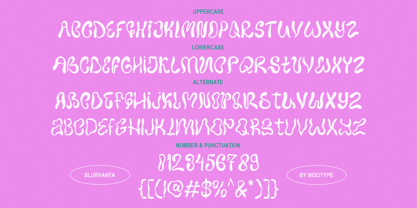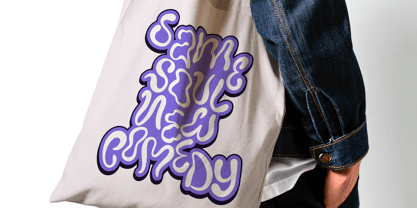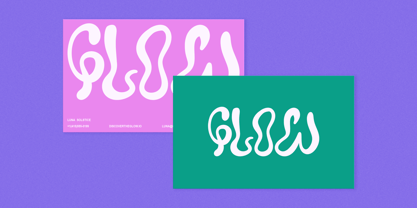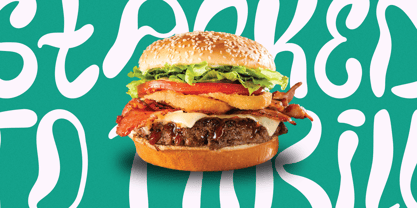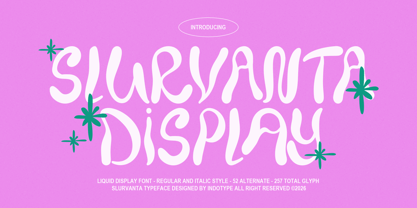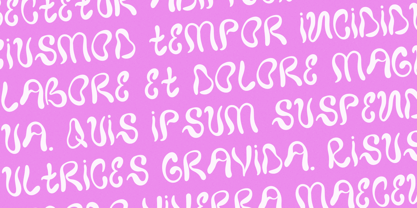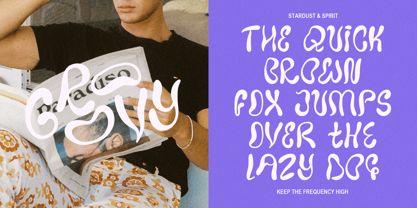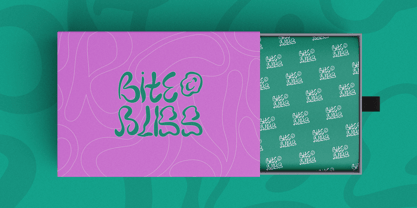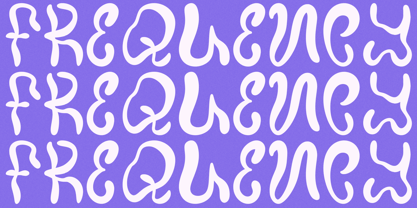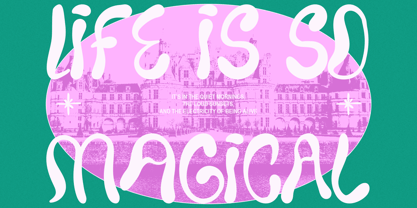
IT Slurvanta
by Indotype
The IT Slurvanta Font Family was designed by Frederik Aristaputra and published by Indotype. IT Slurvanta contains 2 styles and family package options. More about this family
Slurvanta is a mesmerizing liquid display font that captures the fluid, organic movement of molten metal and flowing water frozen in time. Its undulating forms, curved distortions, and seamless connections create a sense of dynamic motion that feels alive and ever-changing. Each letter appears to drip, flow, and merge—like typography caught in a state of beautiful transformation. With 257 total glyphs and 52 stunning alternates, Slurvanta offers endless possibilities for creating truly unique, fluid compositions. Available in both Regular and Italic styles, this font brings organic energy to any project. Perfect for music festival branding, liquid-themed packaging, fantasy designs, and any creative work that demands movement, fluidity, and hypnotic visual appeal. • Ideal for: Music Festival Branding, Liquid & Beverage Packaging, Fantasy & Surreal Designs, Album Art & Merchandise, Experimental Typography, Psychedelic & Dreamlike Projects. • Classification: Display, Liquid, Experimental, Decorative. • Attributes: Fluid, Organic, Dynamic, Hypnotic, Surreal, Moving, Transformative.
Designers: Frederik Aristaputra
Current Foundry: Indotype